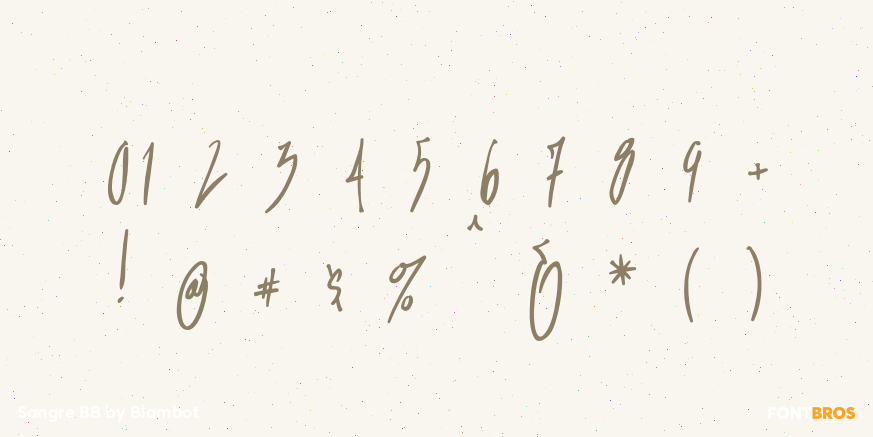
Sangre BB
Font Family by Blambot
A handwriting font with a decidedly sexy, Mediterranean flair.
Perfect for restaurant signage, menus, party invitations and more. Sangre includes a plethora of European characters.